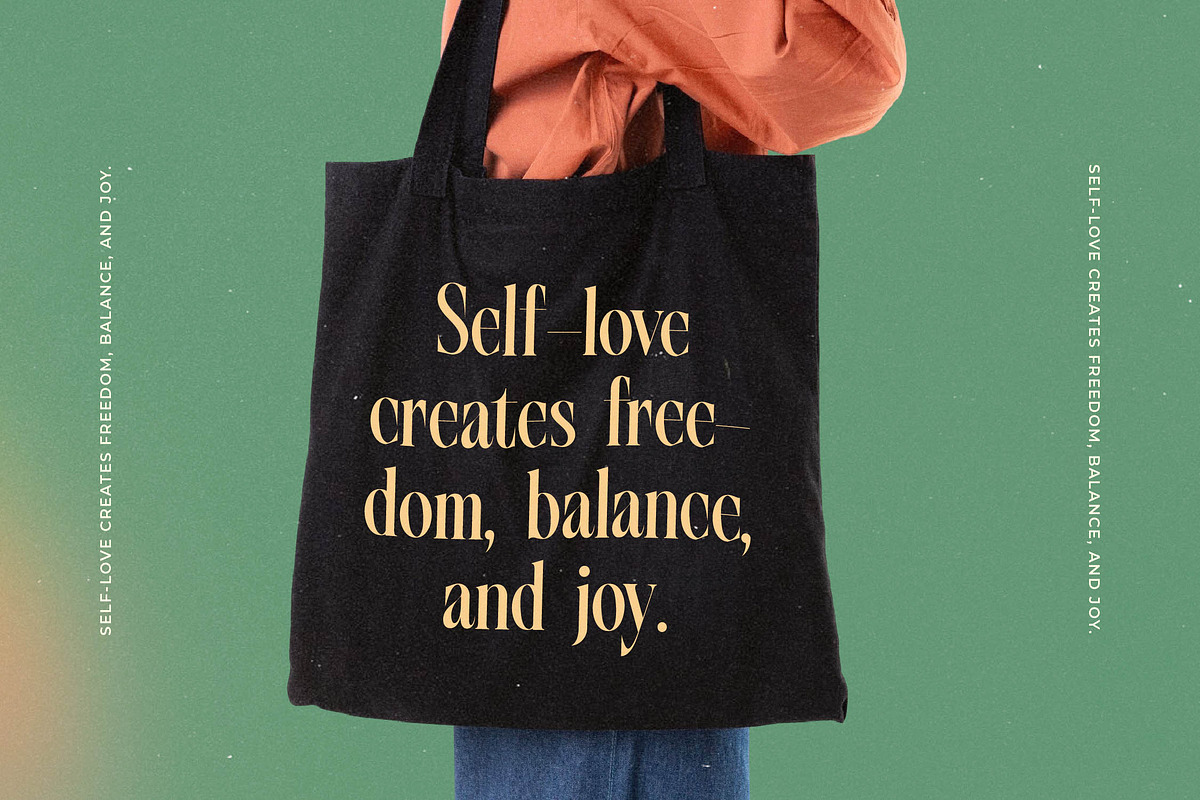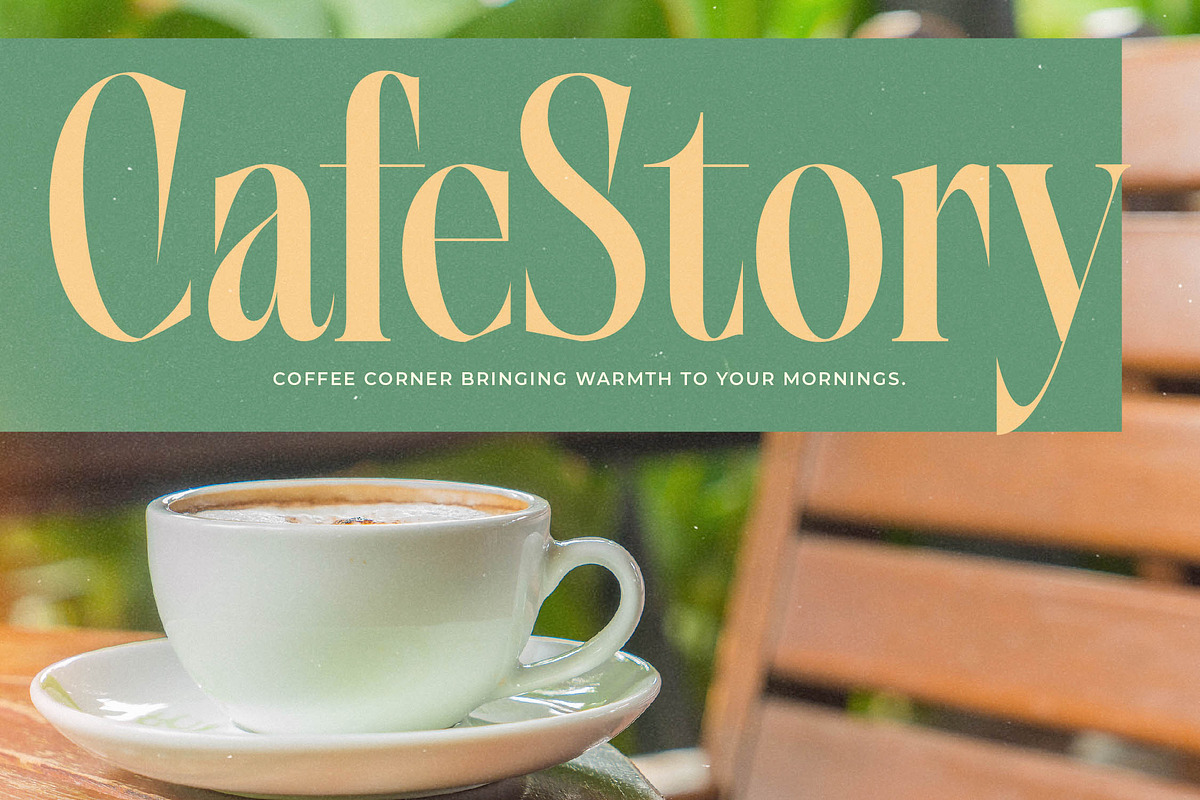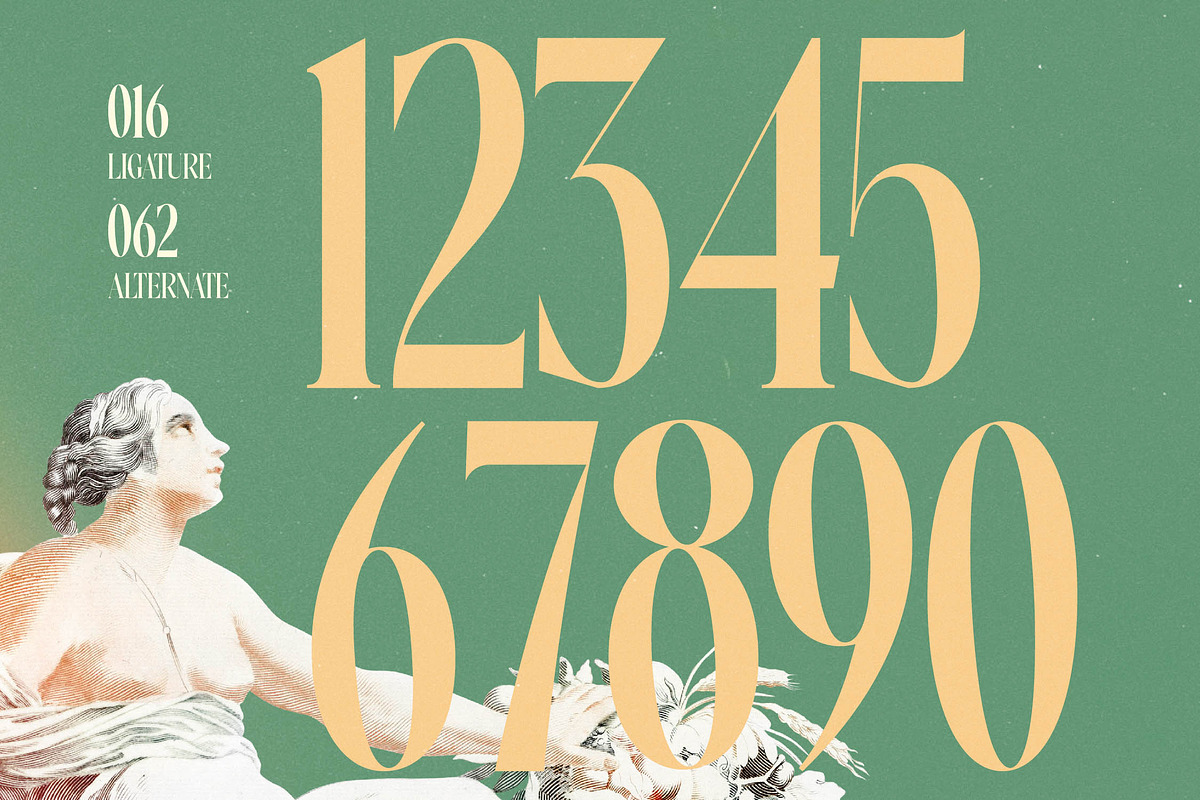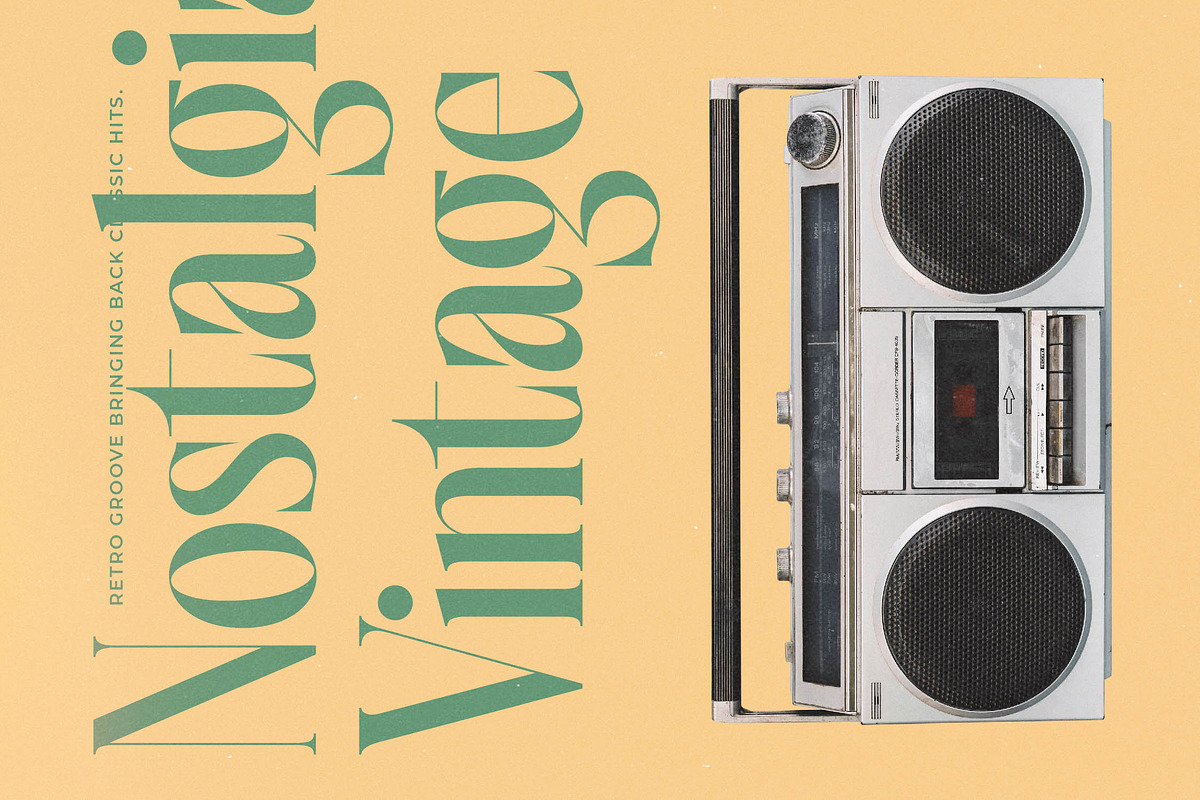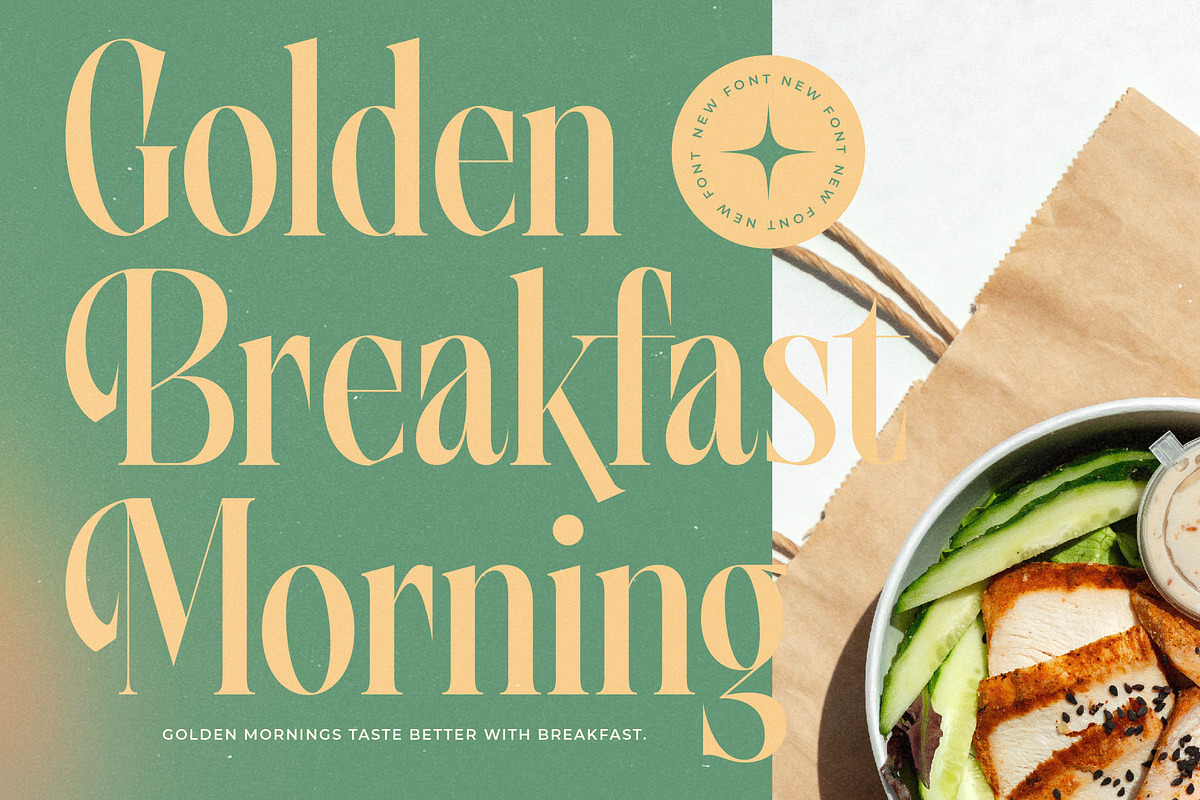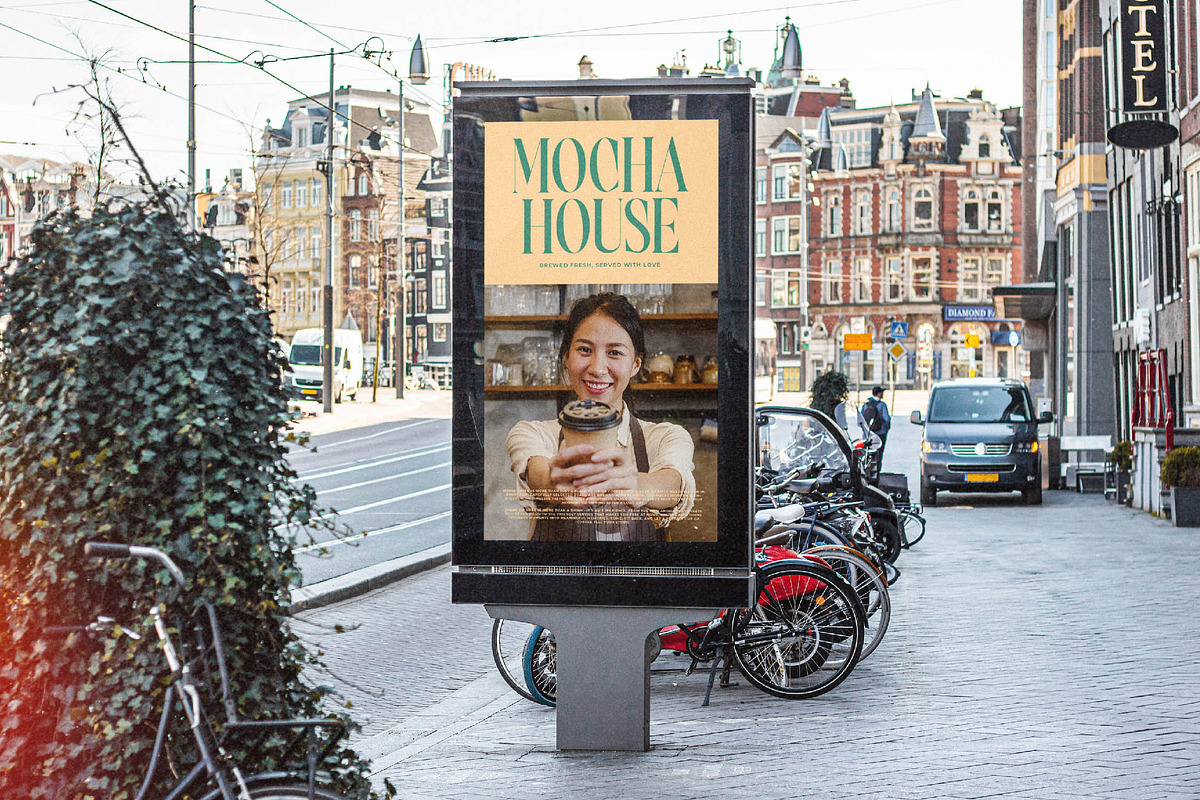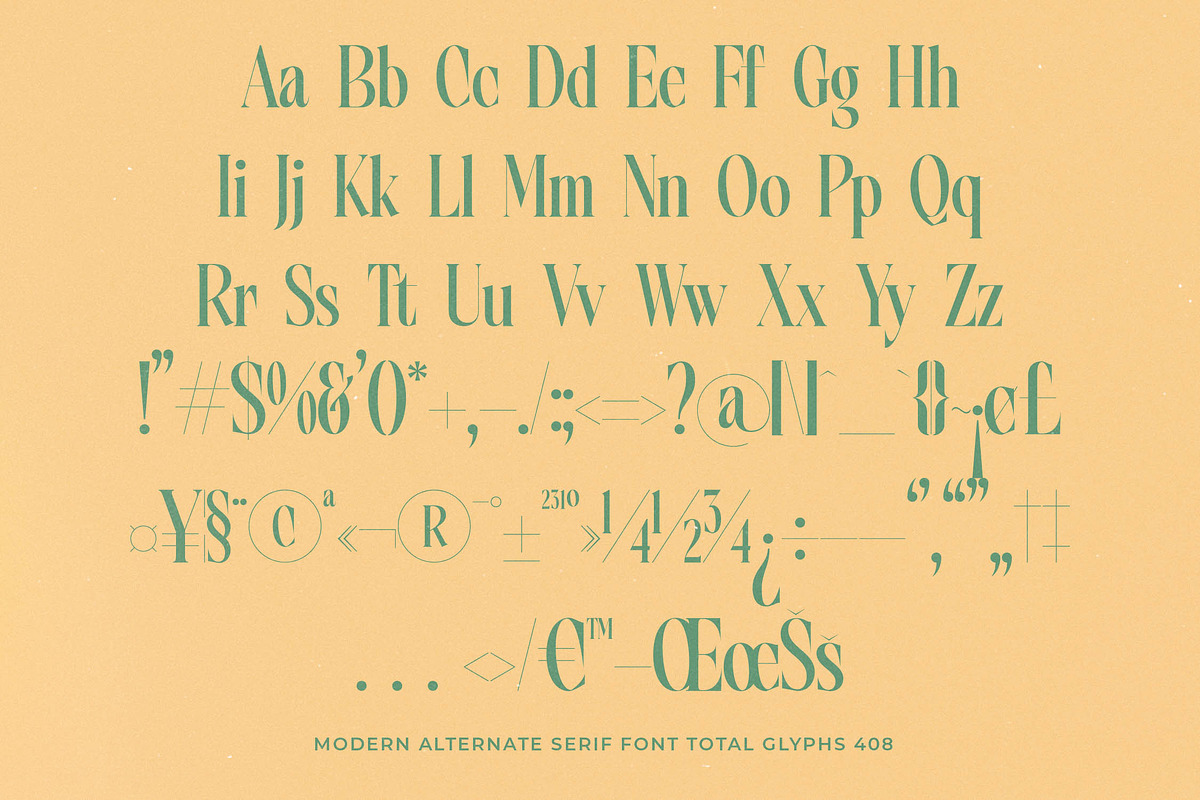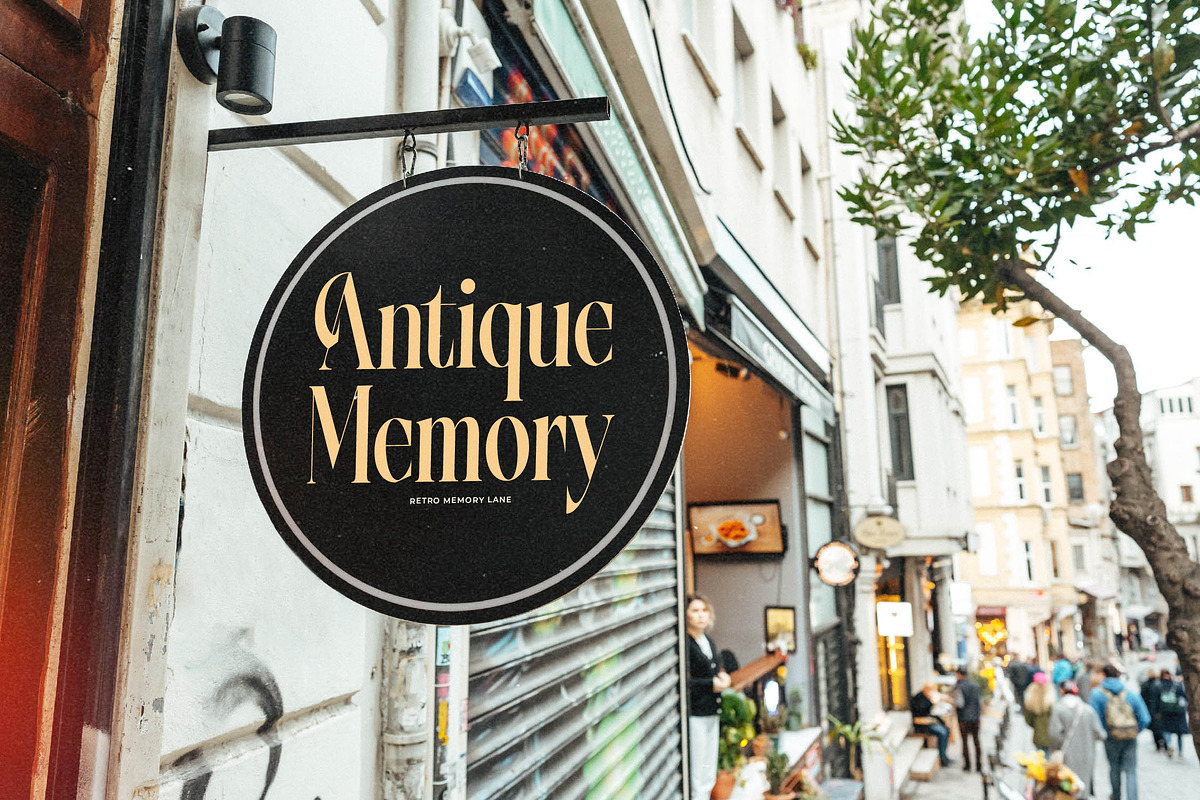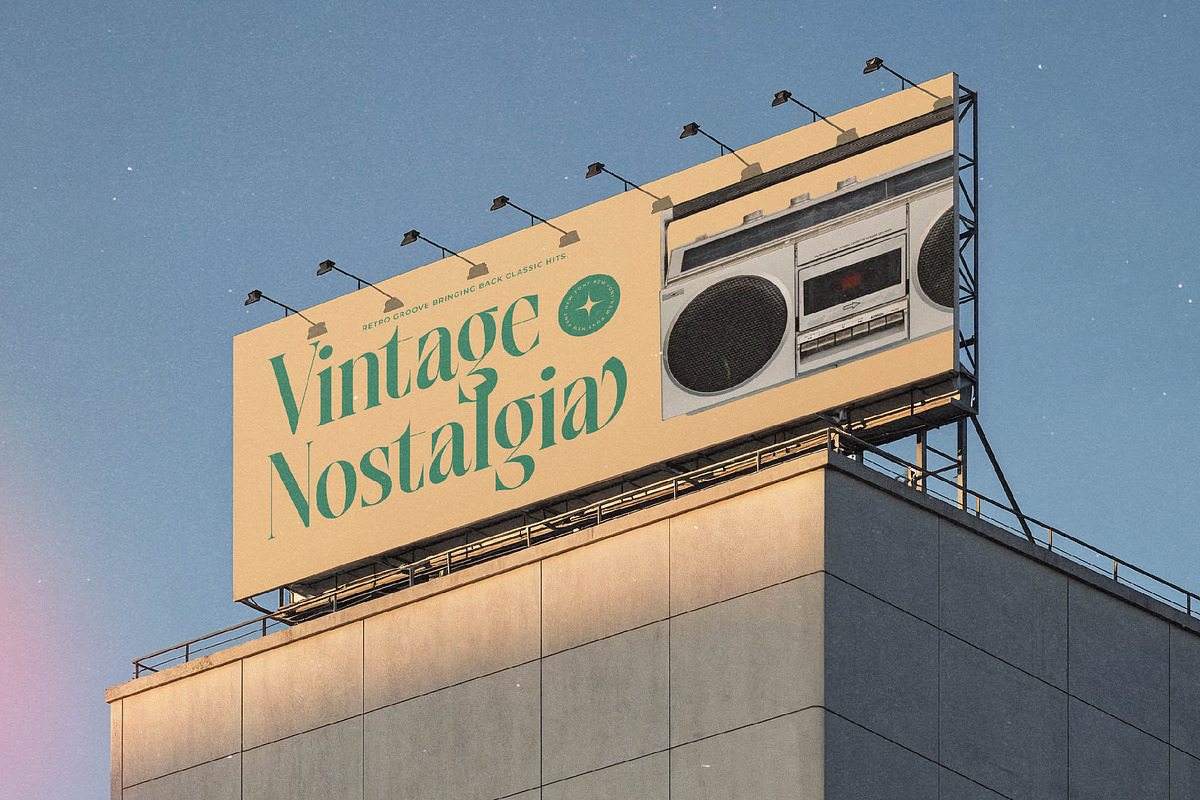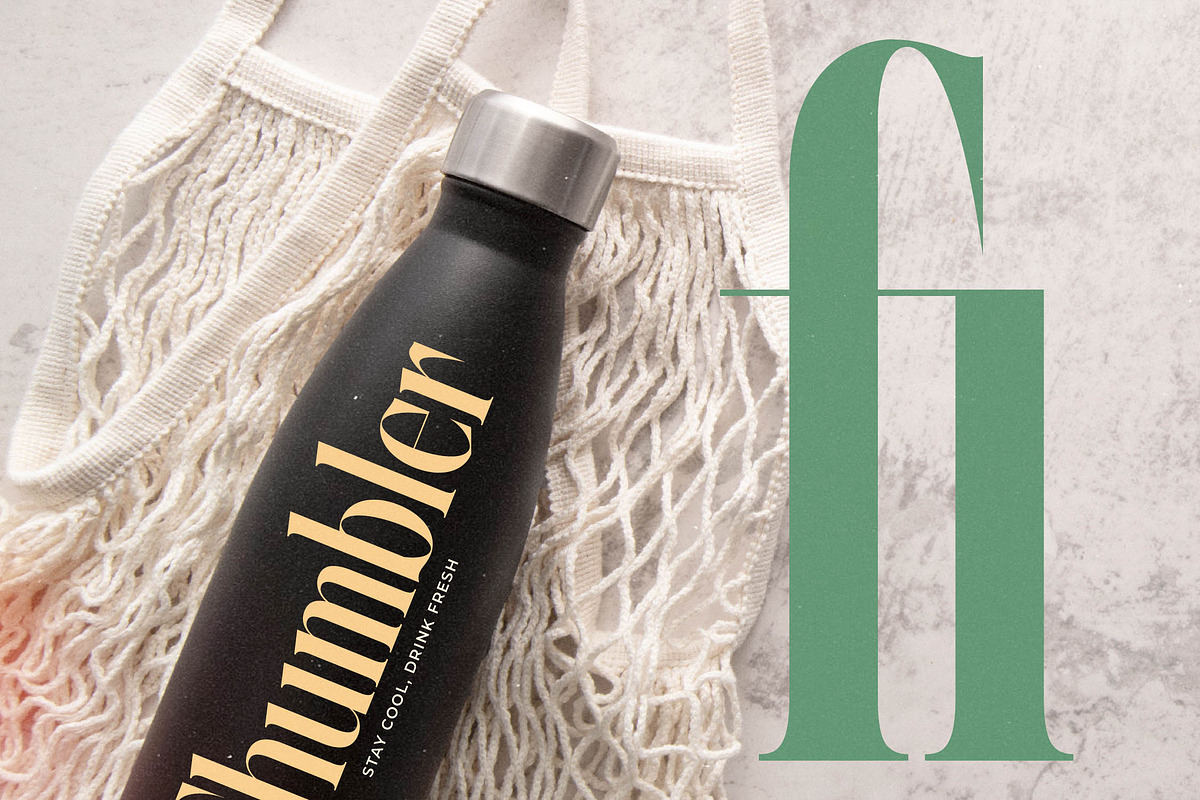
Mattery Gravity Modern Serif Font
Mattery Gravity represents the pinnacle of modern editorial sophistication, blending classical proportions with contemporary flair. This typeface is a masterclass in elegance, designed for creatives who refuse to settle for the ordinary in their visual storytelling.
Taking cues from the graceful silhouettes of neoclassical sculpture and the sharp, confident lines of haute couture, this font evokes an atmosphere of timeless prestige. It tells a visual story of heritage reimagined for the digital age, perfect for brands that want to feel established yet progressive.
With its modern serif display aesthetics, this typeface delivers a powerful luxury typography experience that demands attention. The high-contrast serif details create a striking visual rhythm, making it the perfect editorial font for those seeking a high-end branding impact that resonates with an upscale audience.
Riding the wave of the current modern serif trend, this font is perfectly positioned for designers who crave editorial display fonts with a unique voice. It taps into the demand for character-driven typography that breaks away from the mundane, offering a bespoke feel that feels both artisanal and professional.
This versatile typeface excels in logo design and comprehensive branding systems where personality is paramount. It is equally at home in high-fashion editorial layouts, premium packaging, bespoke wedding invitations, and any fashion industry application that requires a touch of class and distinction.
To ensure maximum creative flexibility, the set includes a generous collection of ligatures and alternates that allow for custom-tailored headlines. The addition of elegant swashes provides extra flair, while the comprehensive multilingual support and international characters ensure your message translates beautifully across global markets.